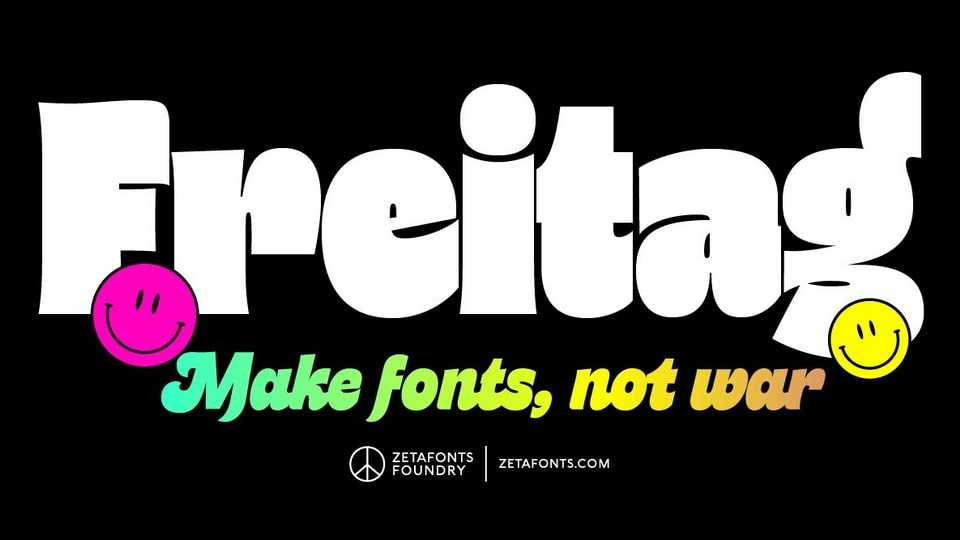
Download Freitag font, a heavy sans serif typeface with humanist condensed proportions, flared stems and reverse contrast. Freitag font was inspired by the funky, joyful lettering of the seventies for advertising, product design and tv titling.